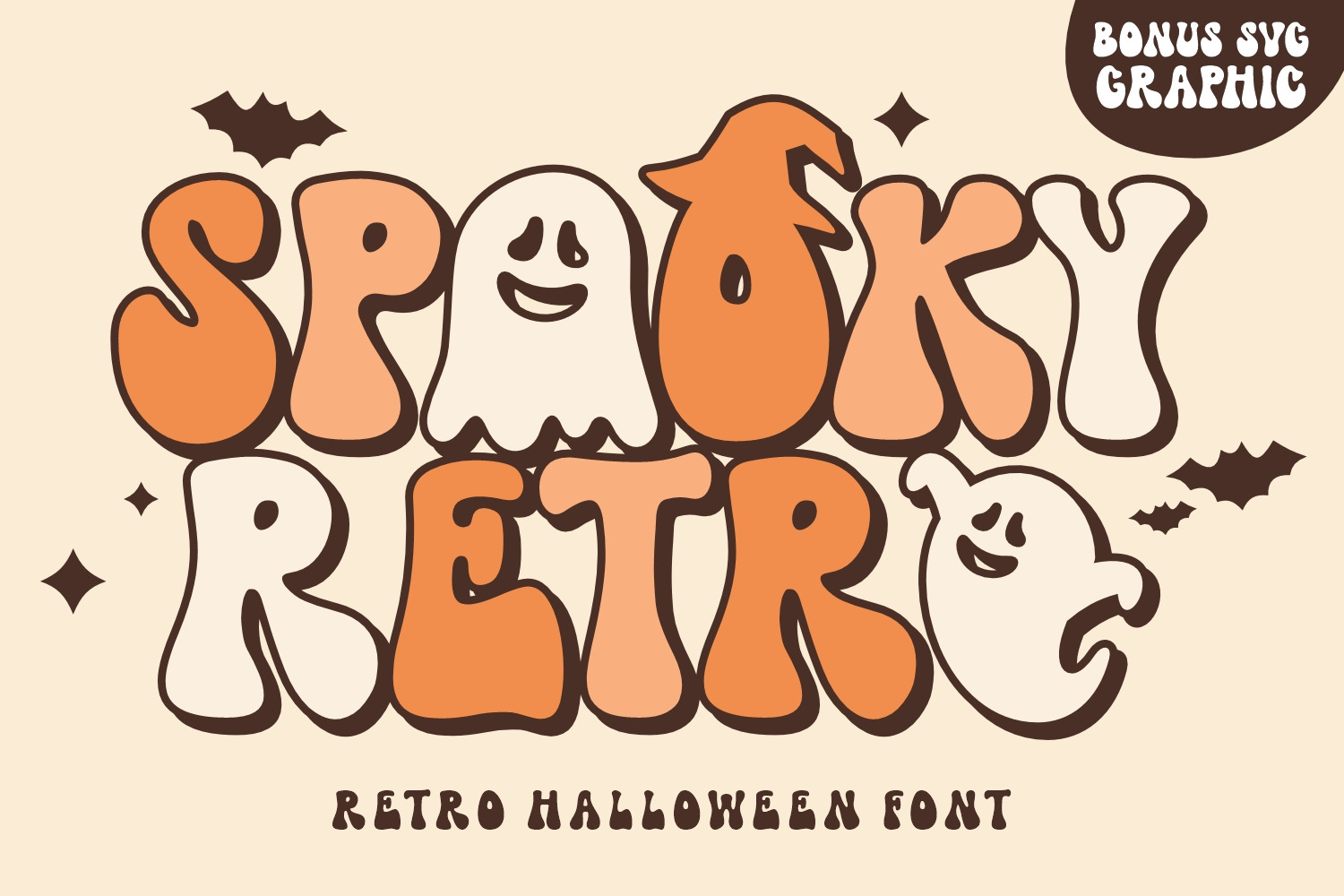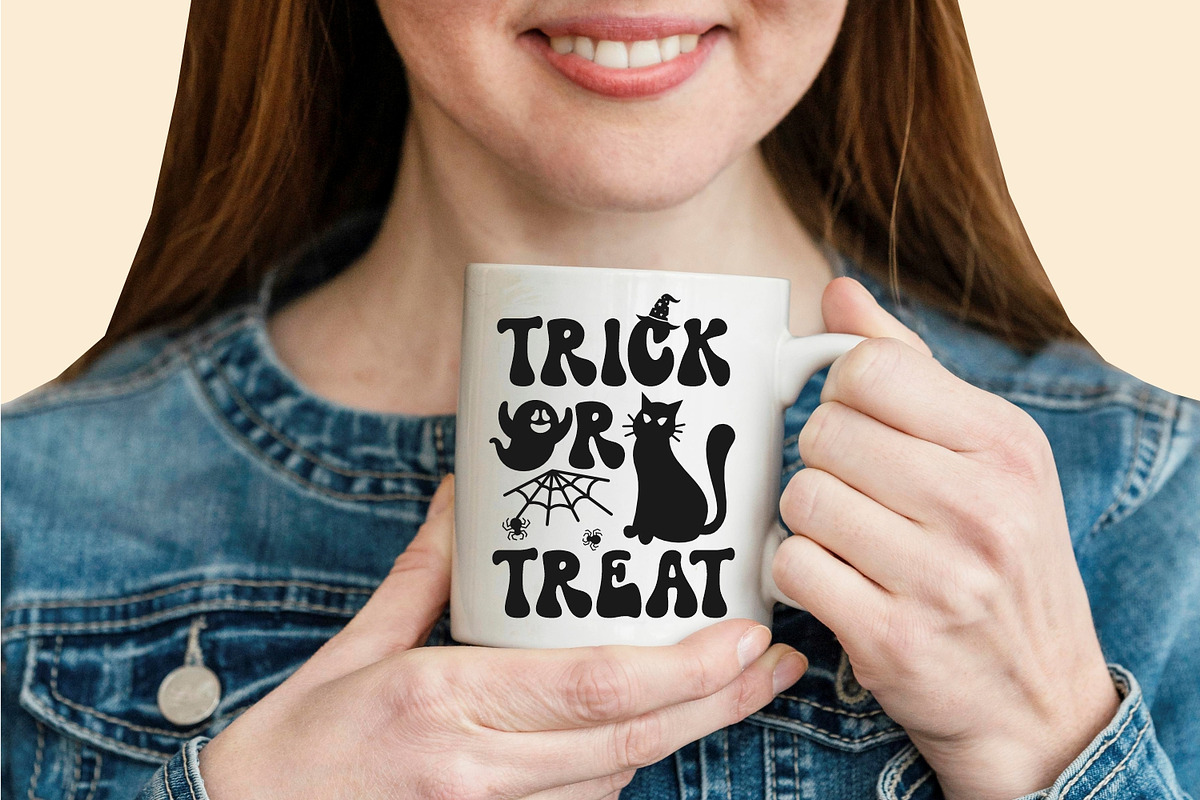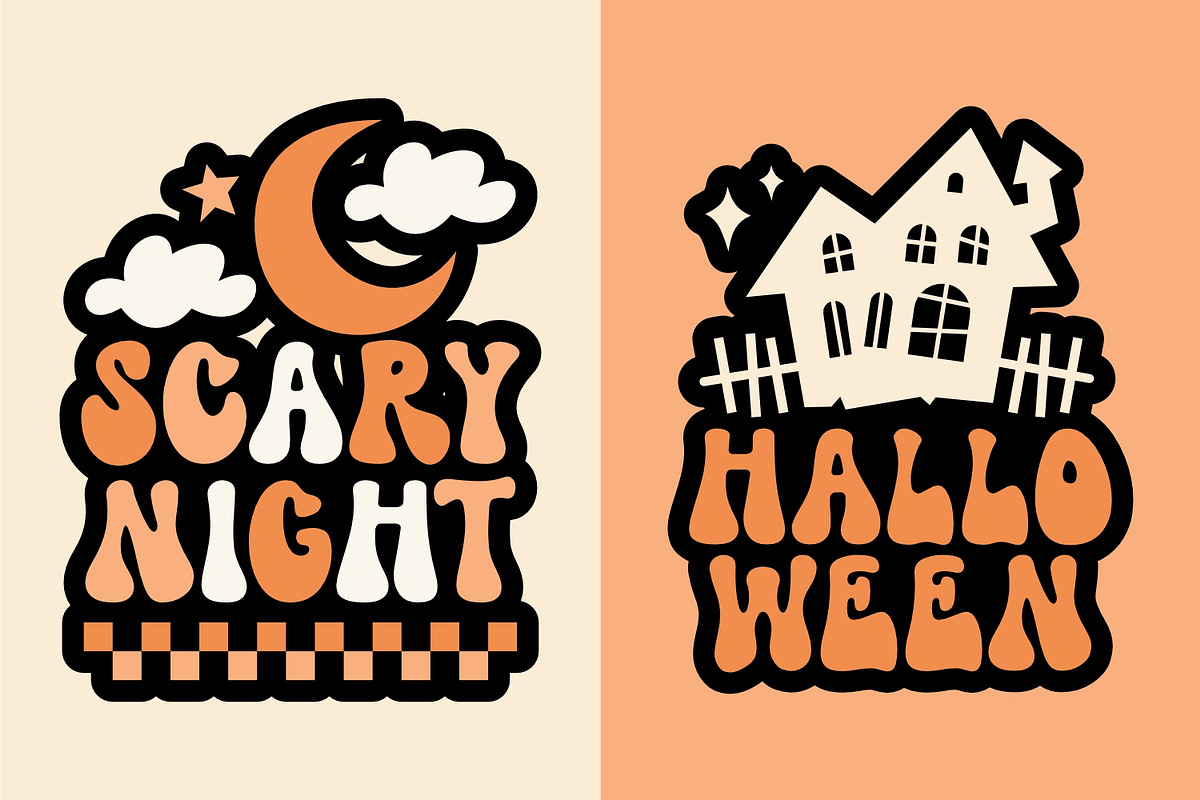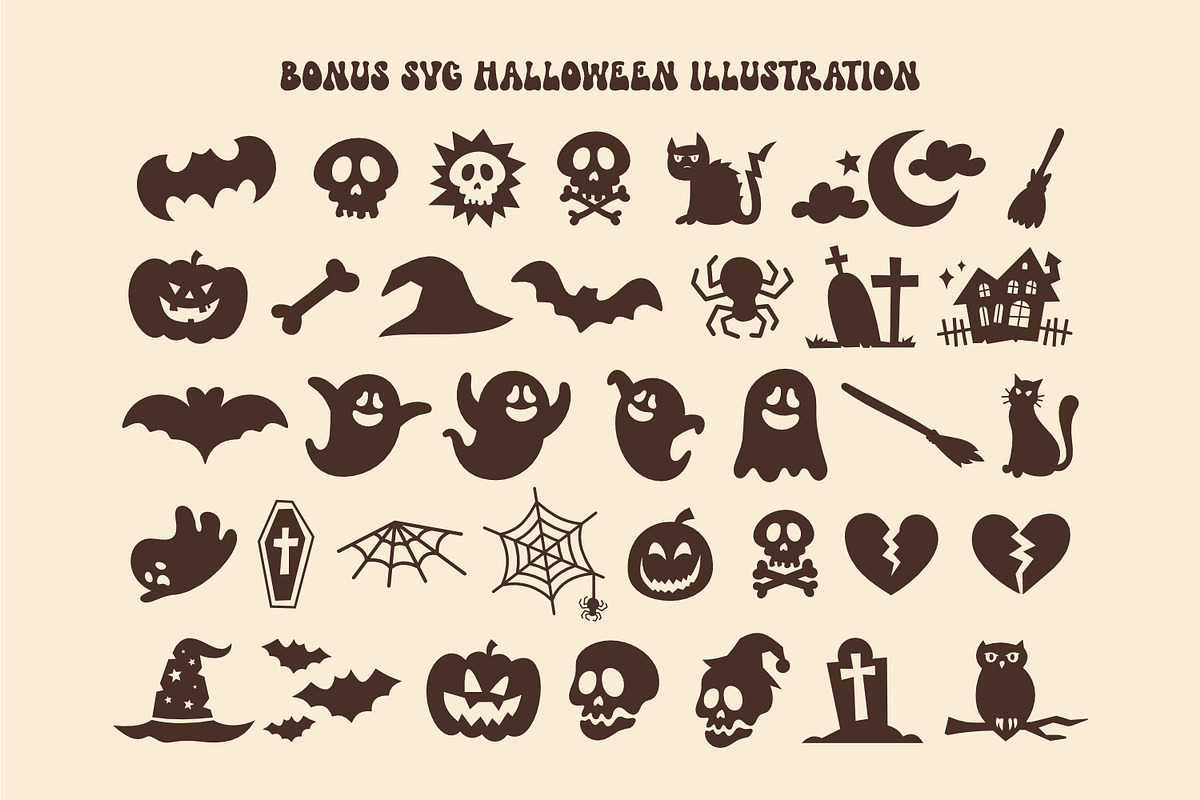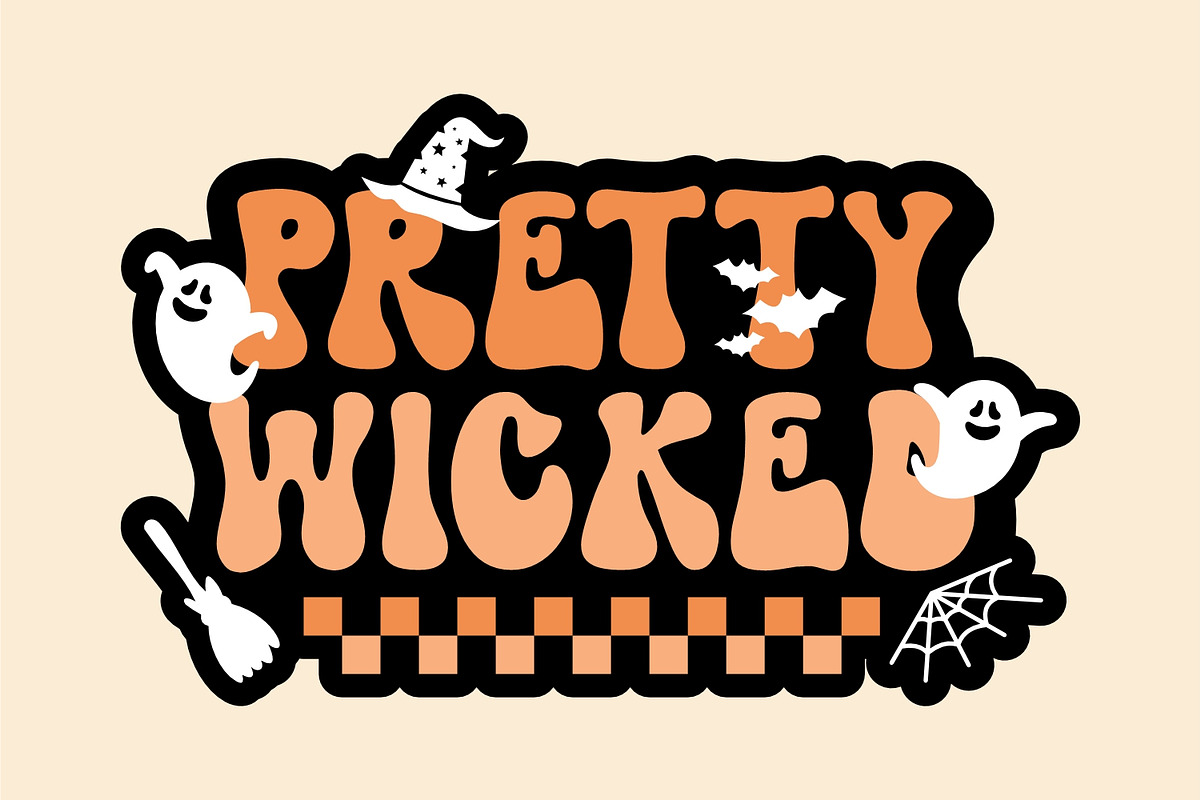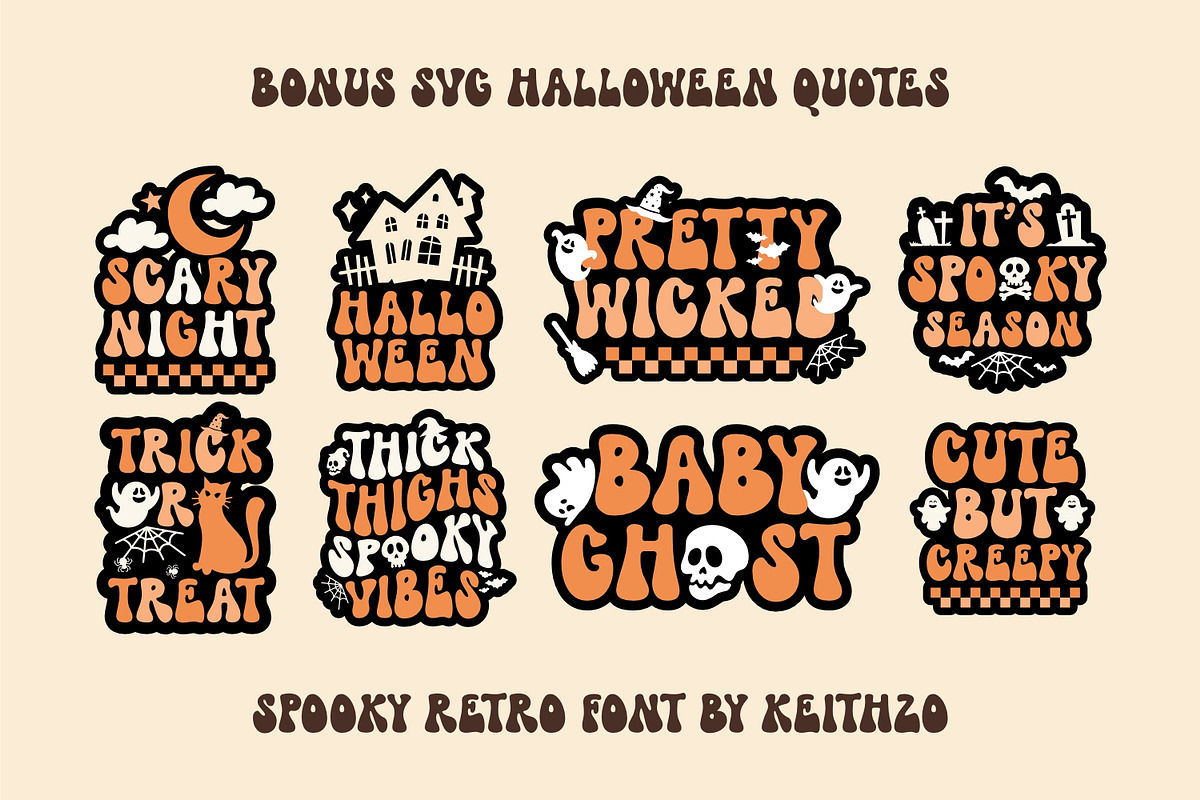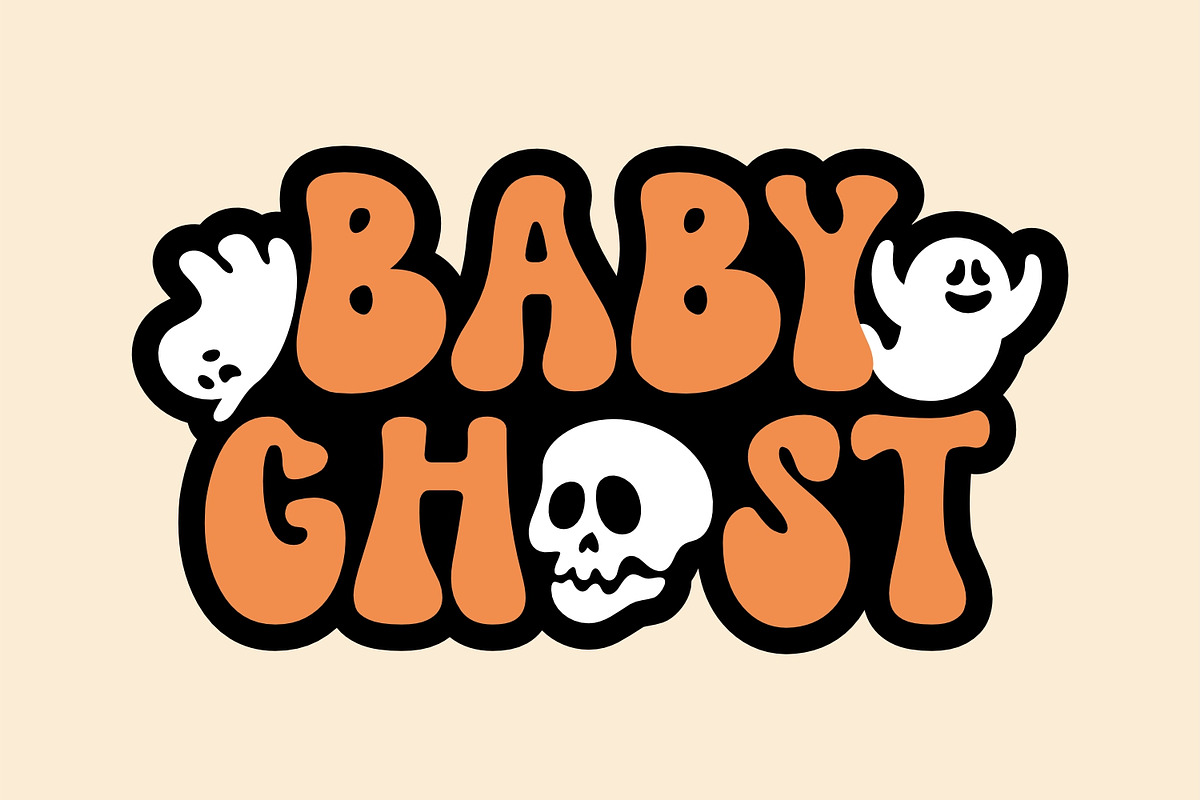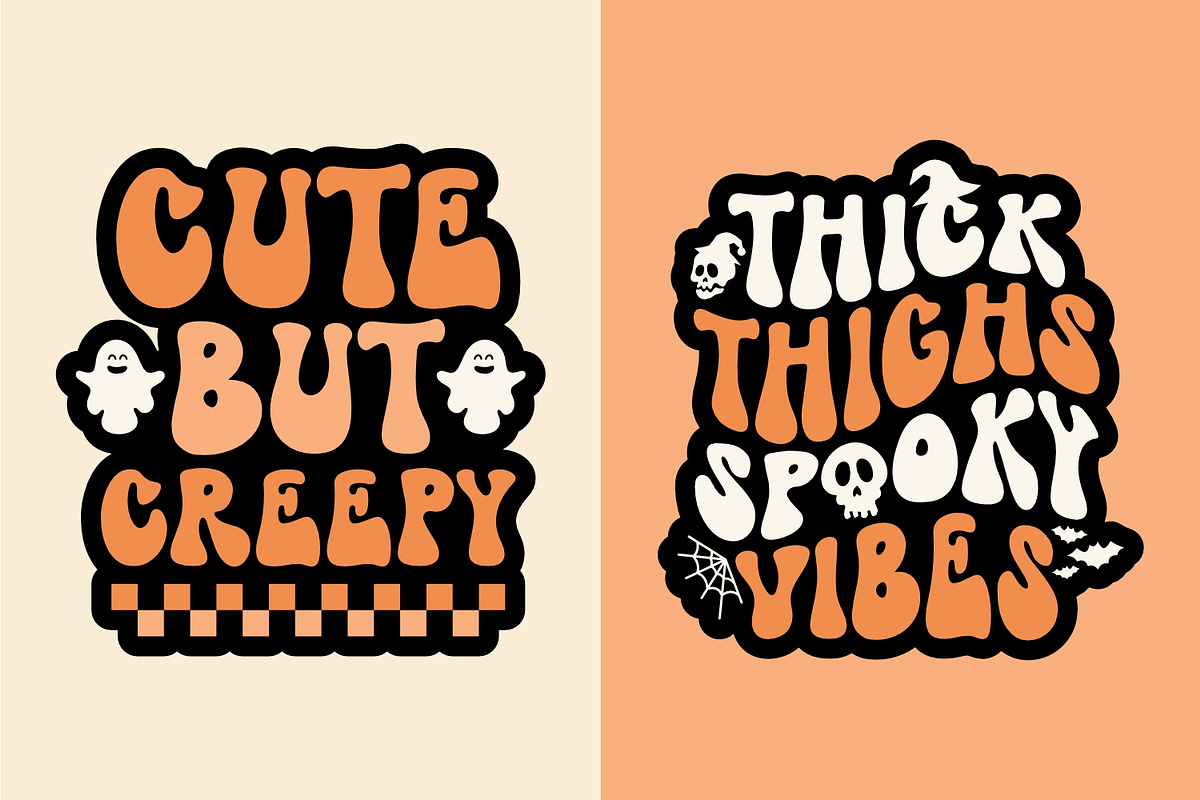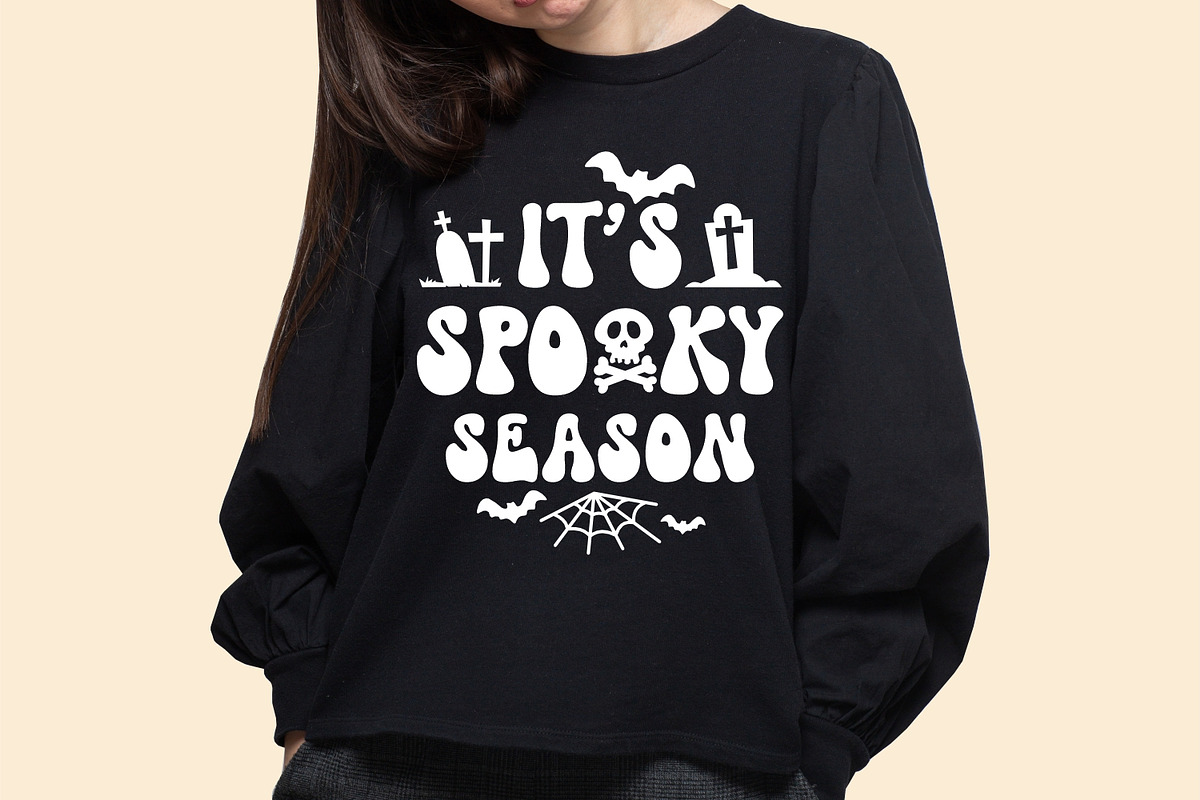
Spooky Retro - Halloween Font
Spooky Retro Halloween Typeface: Embrace nostalgia and horror with this typeface. Conjures the eerie essence of classic Halloween. Ideal for vintage-themed designs, party invitations, and chilling creative projects.
All caps character